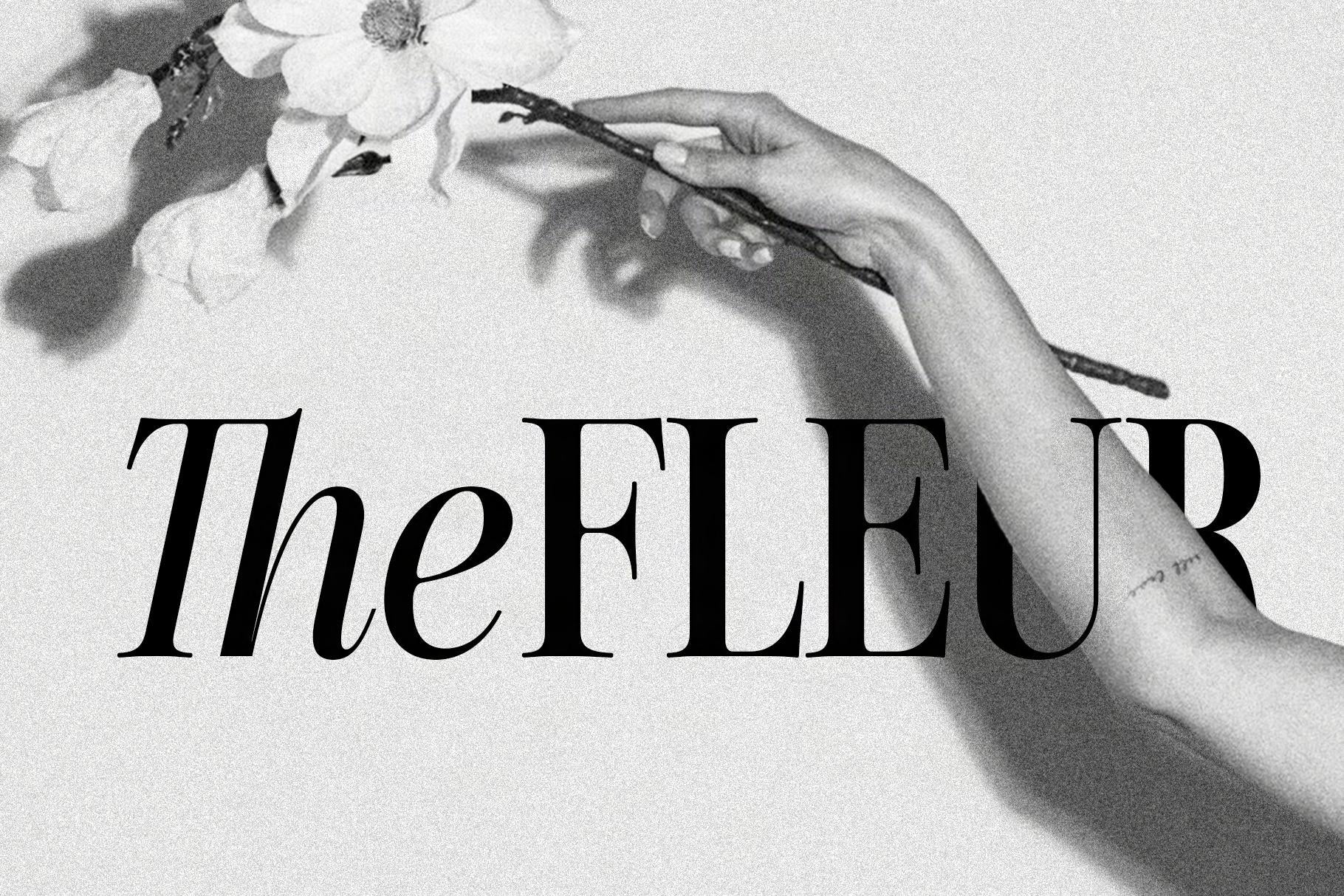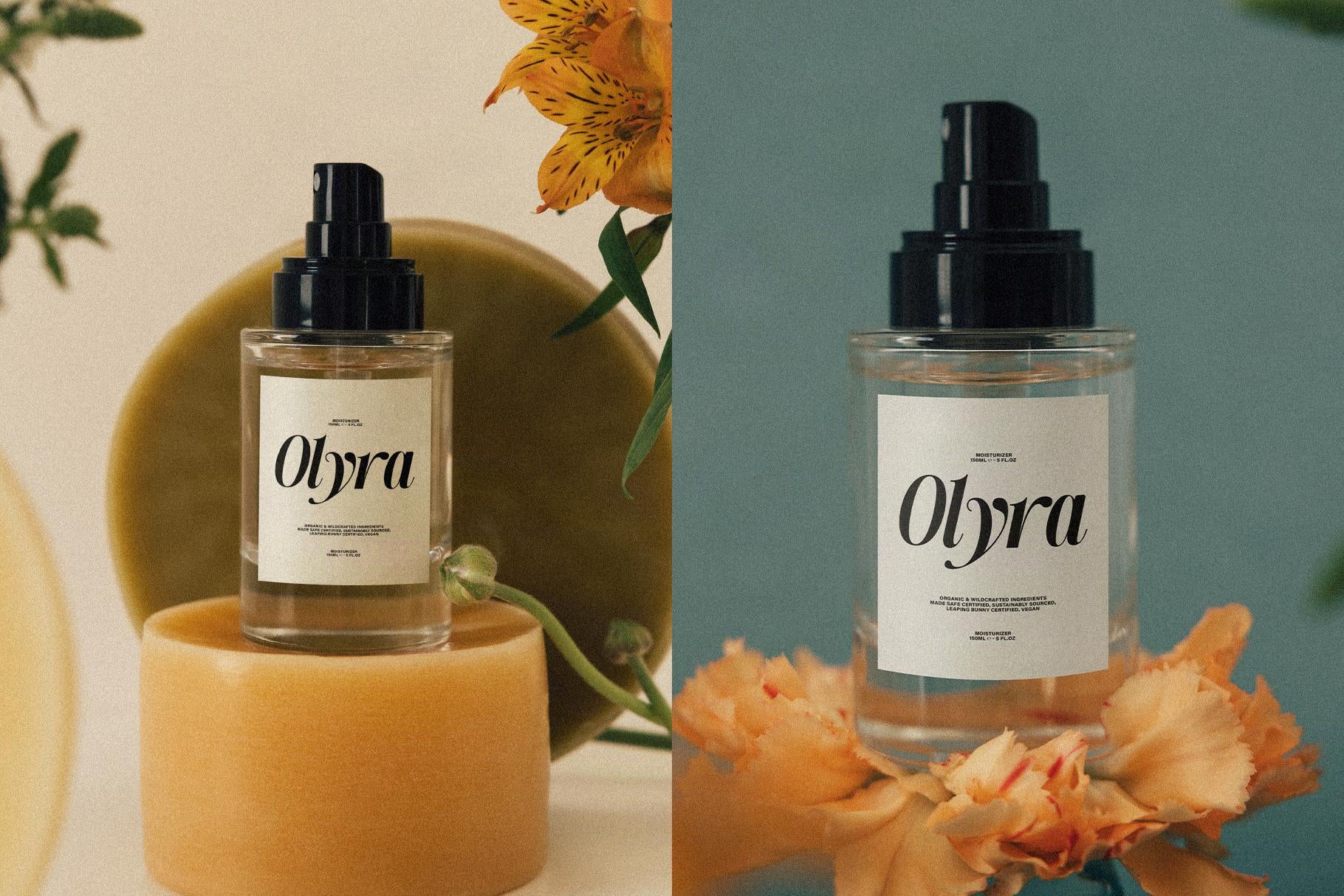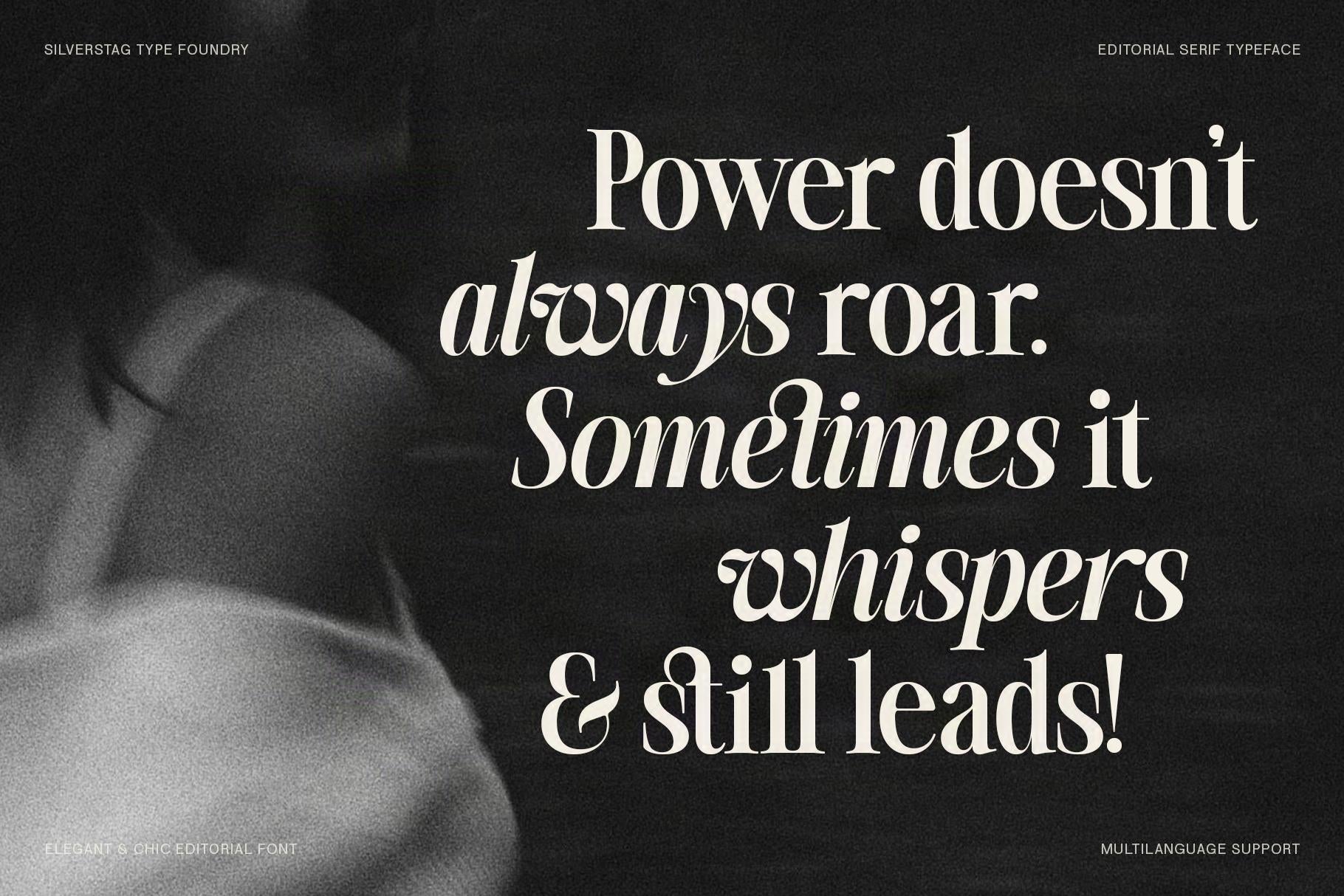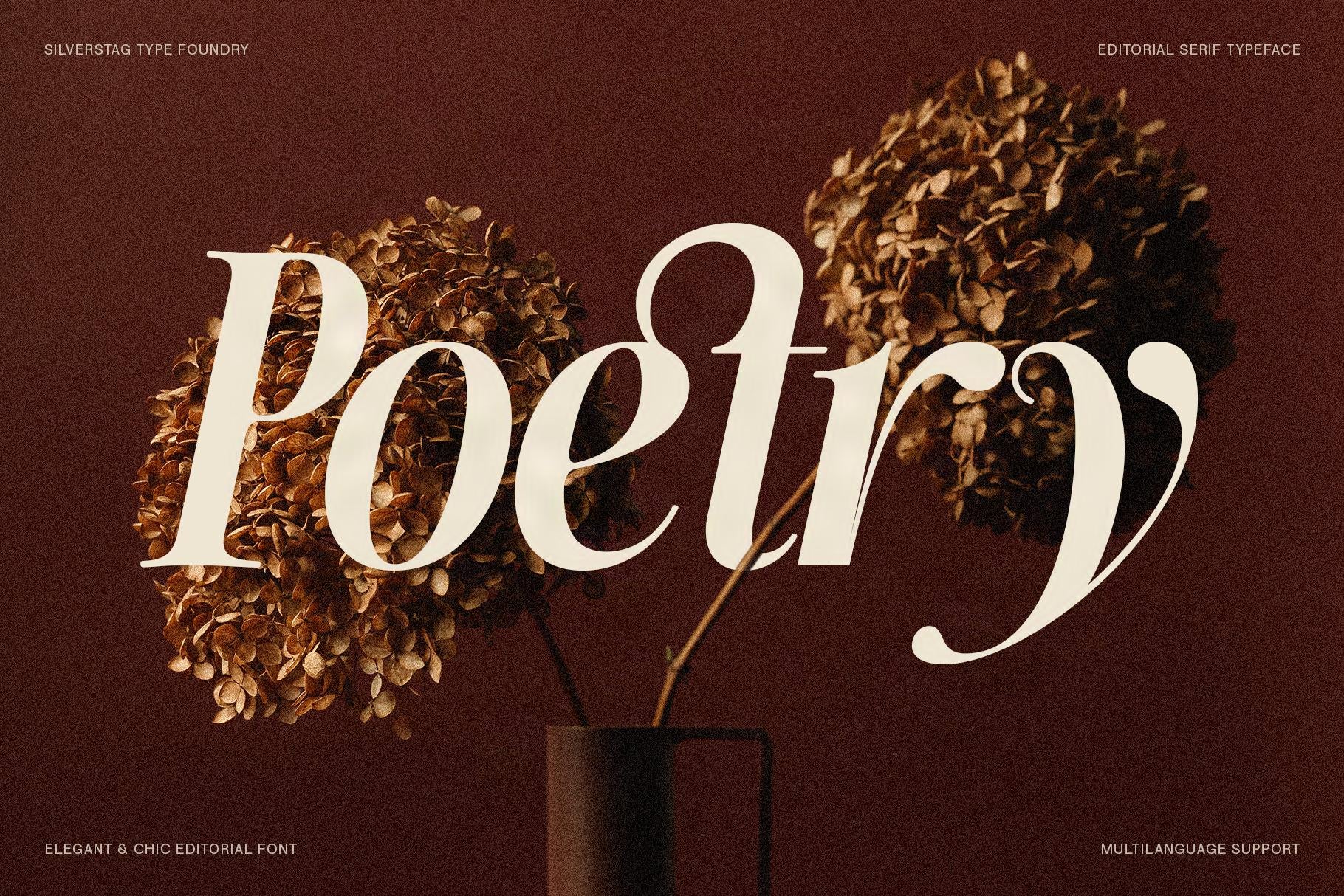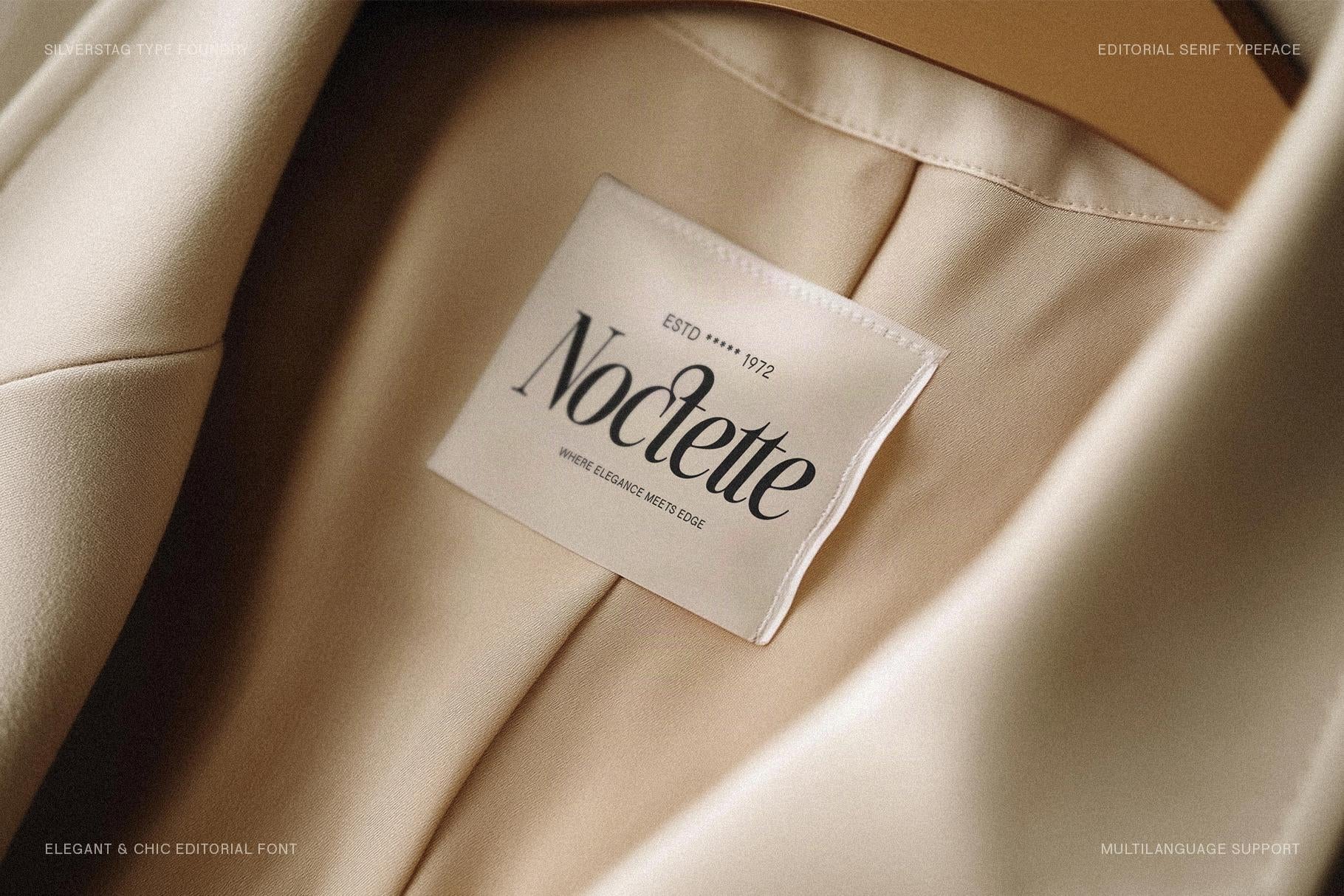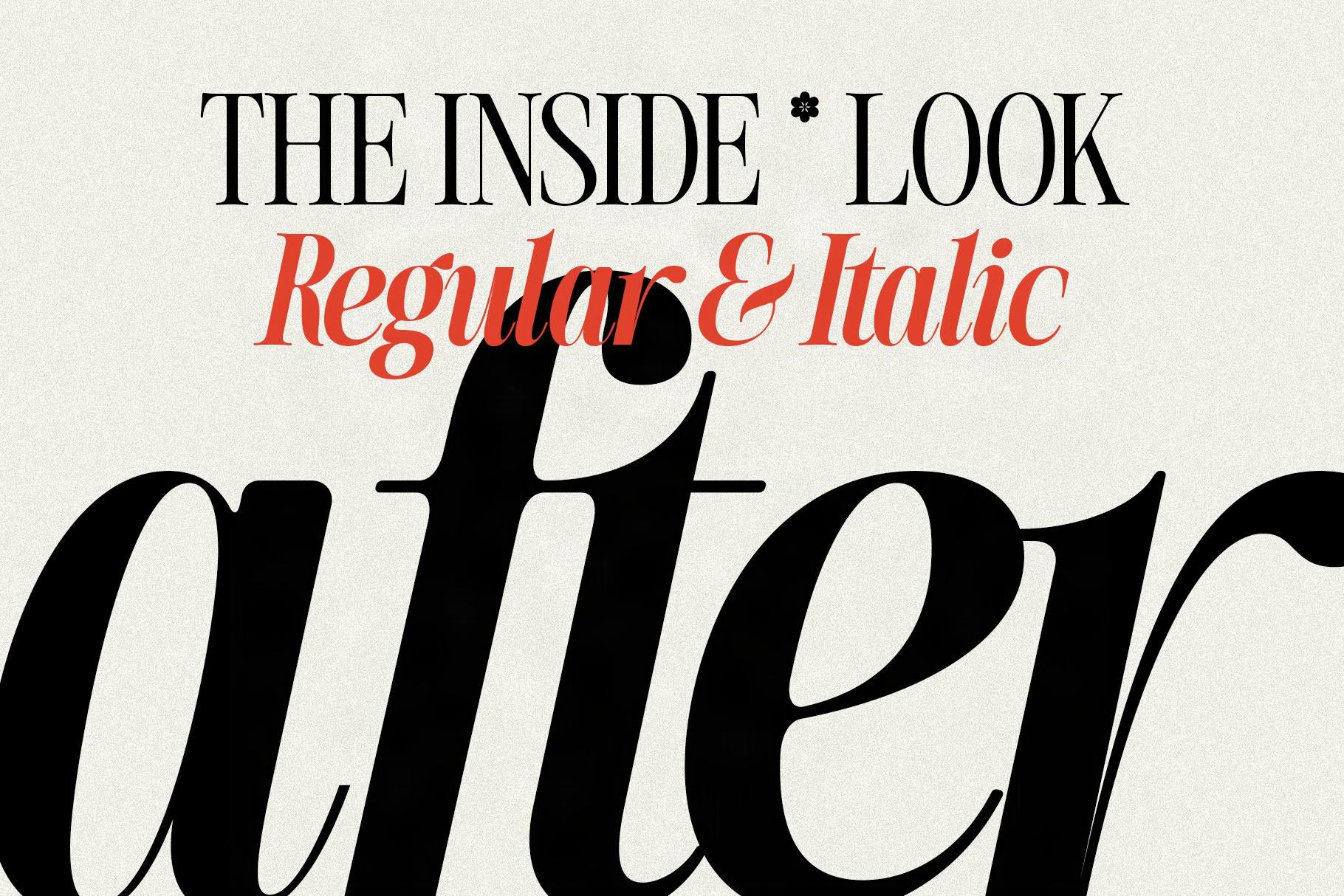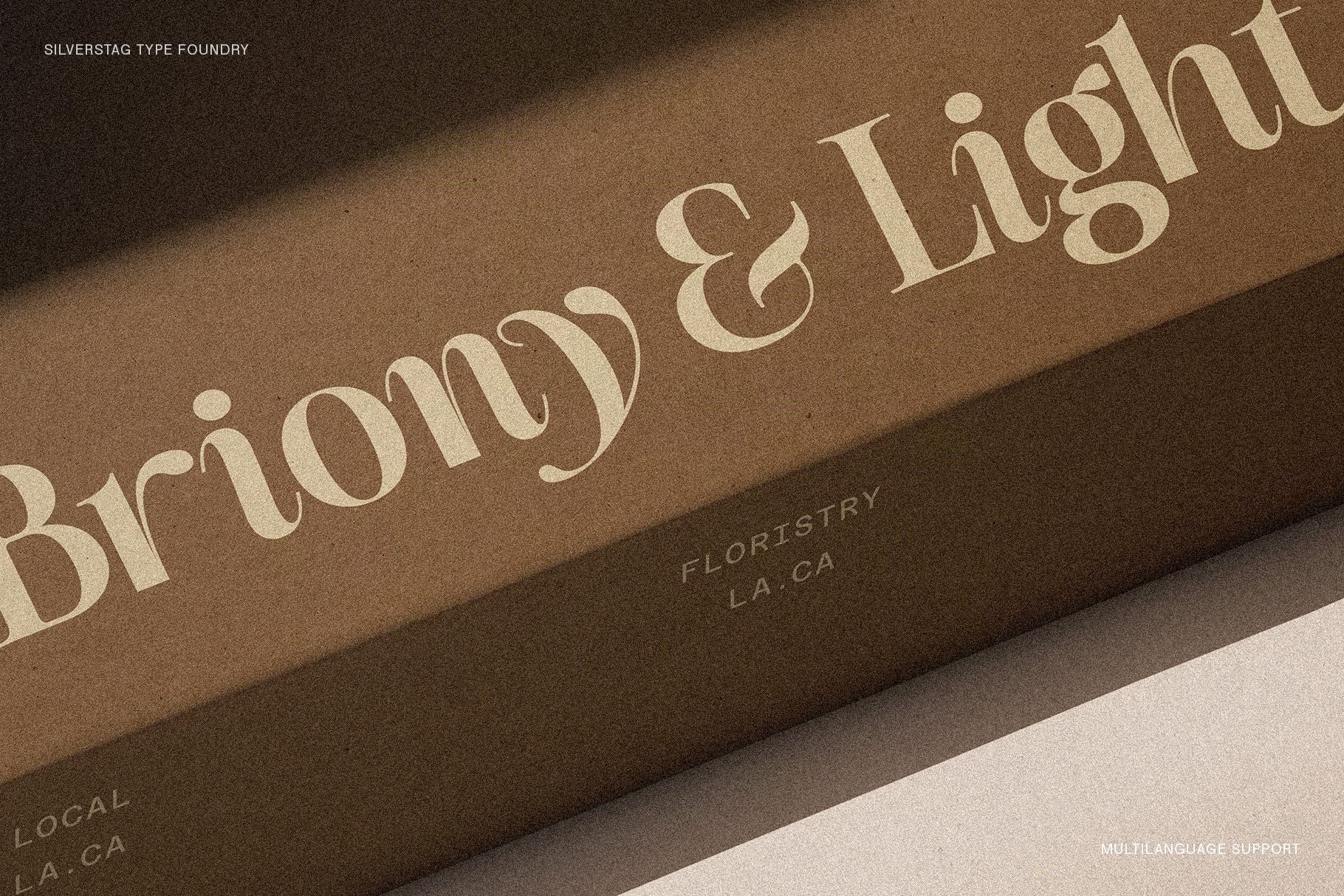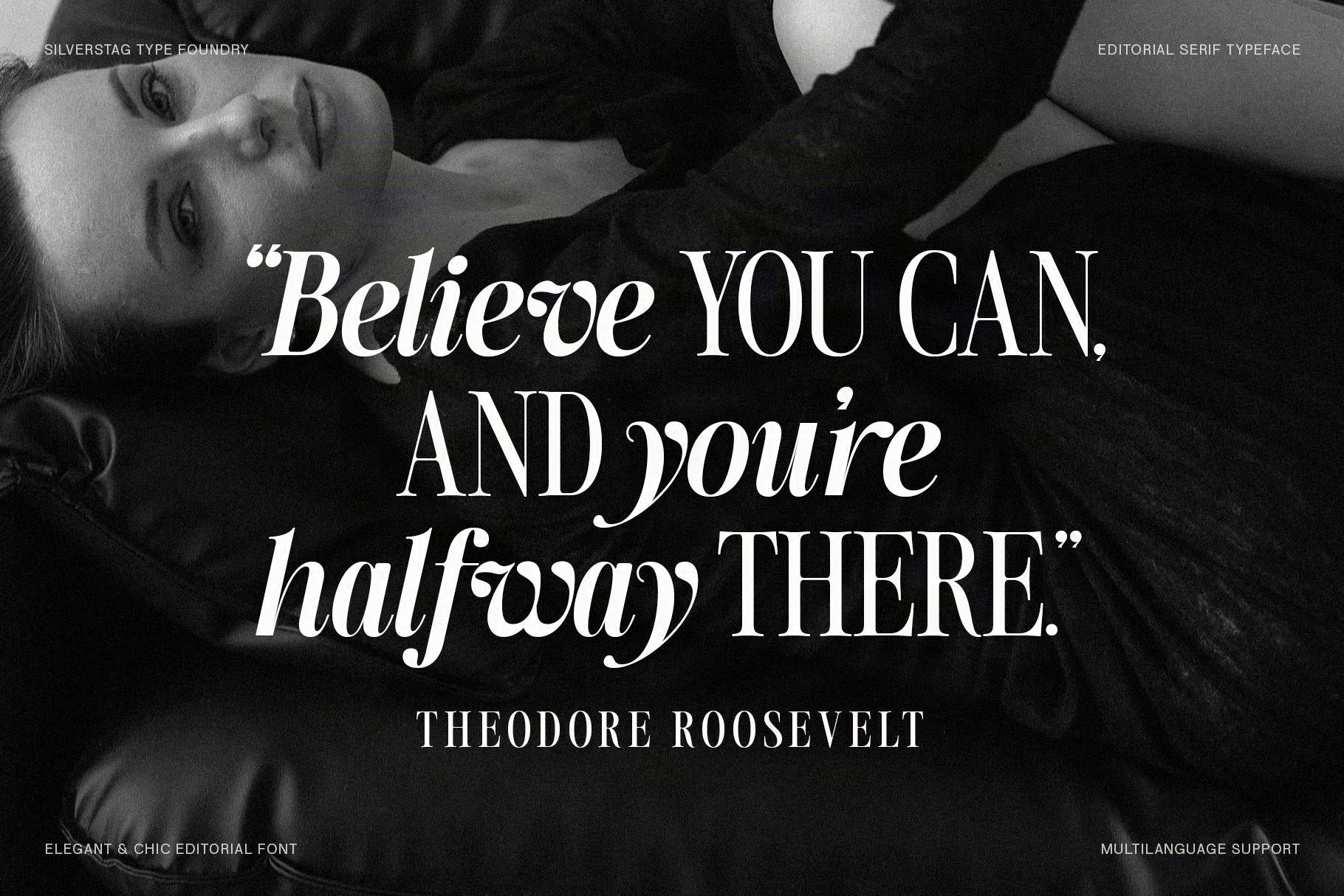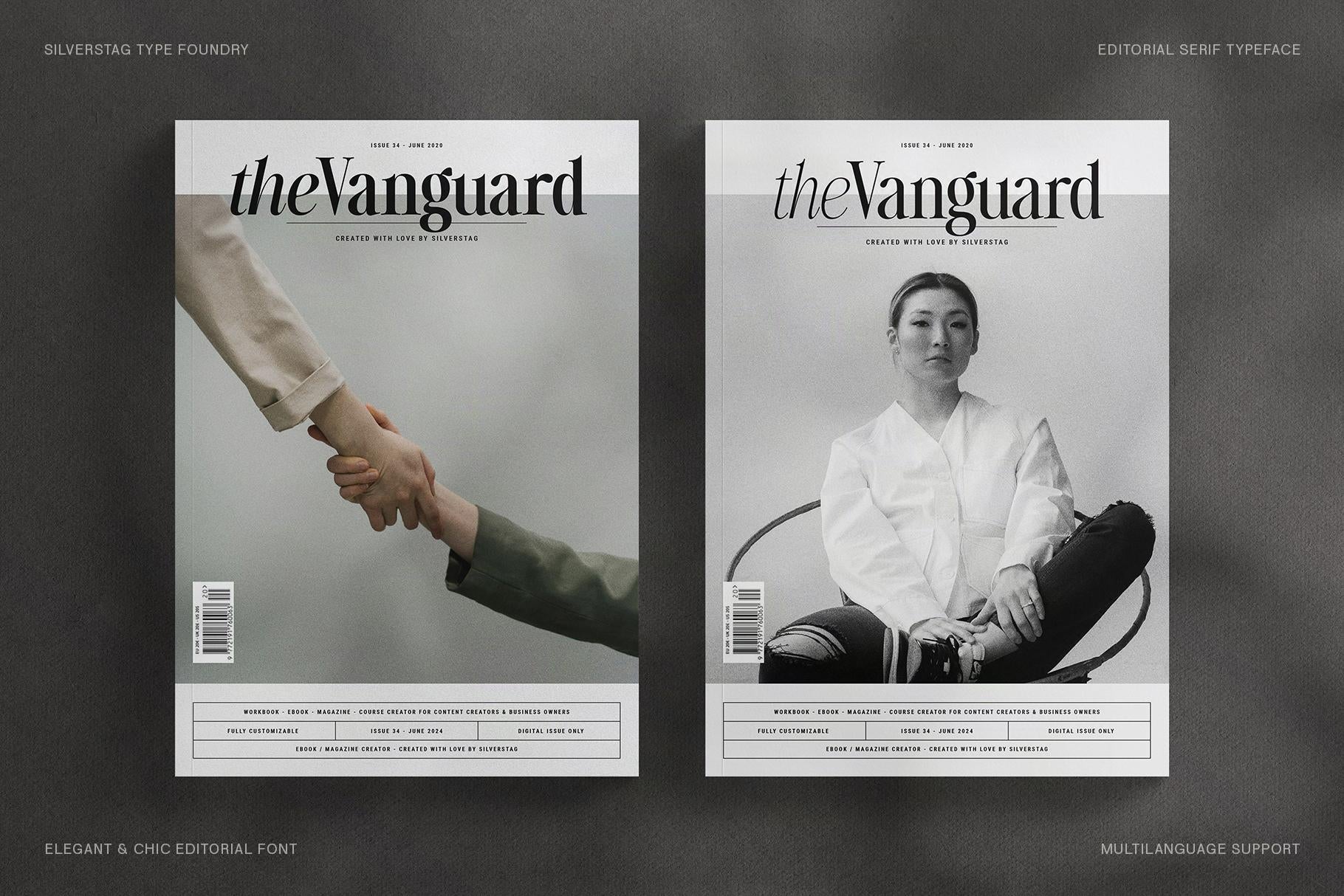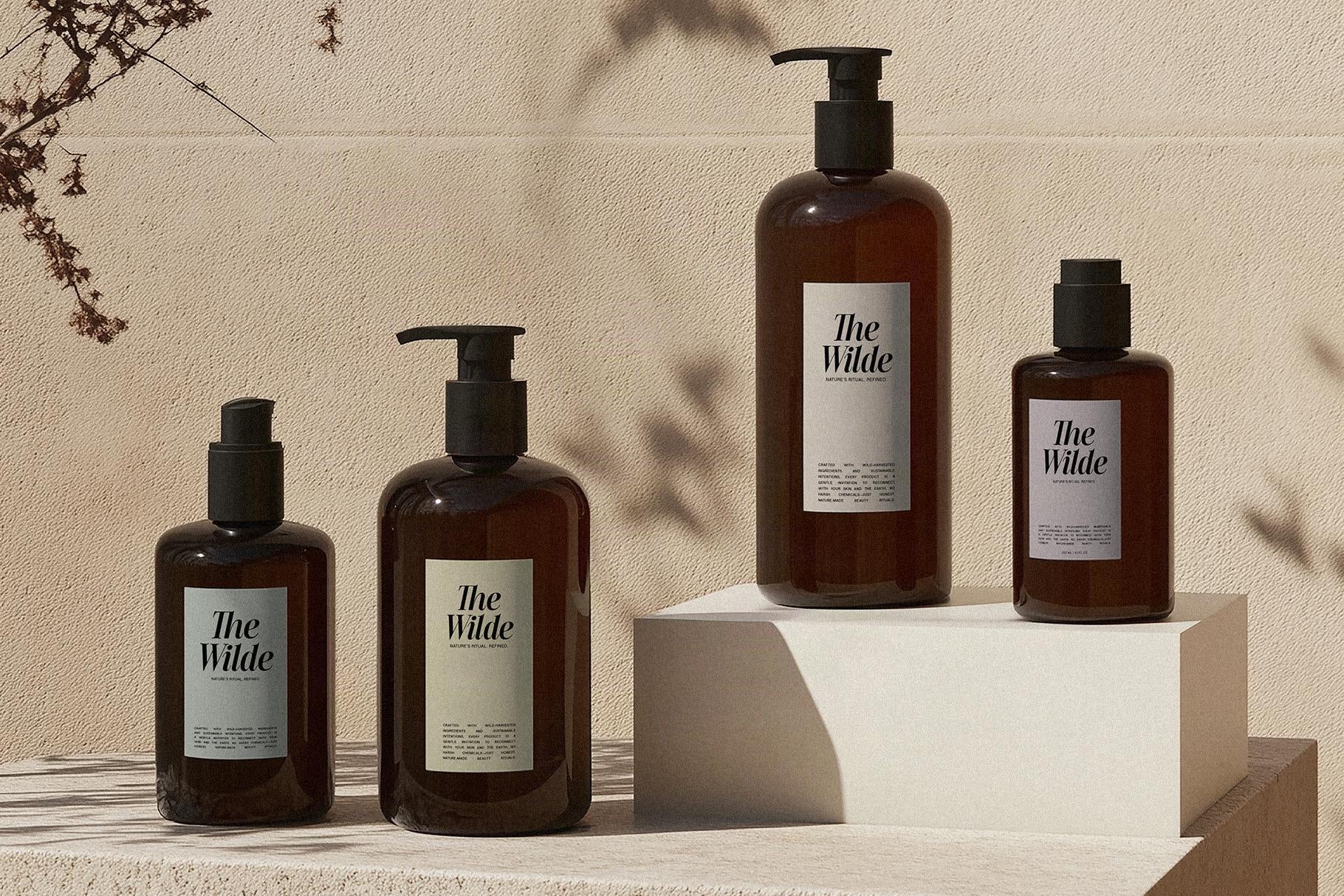
SLTF The Silver Editorial – A Nostalgic Serif Typeface
SLTF The Silver Editorial is a high-impact serif typeface inspired by the expressive typography of 1980s fashion magazines—reimagined for modern creatives. Now fully redrawn and expanded into a powerful 18-font system (9 weights + italics), it’s your new essential for editorial design, branding, packaging, and digital storytelling.
Built on the aesthetic of vintage serifs and sculpted with a contemporary edge, The Silver Editorial blends refined contrast, bold elegance, and beautiful rhythm, making it ideal for both statement headlines and elegant body text. With support for 100+ languages, it adapts seamlessly to global projects and multicultural campaigns.
What Makes The Silver Editorial Special:
• 18 Fonts Total – 9 weights (Thin to Black) with matching italics
• Inspired by the 1980s – Sharp, expressive serifs with modern restraint
• Beautiful Italics – More than slanted—true editorial flair and dynamism
• Luxury-Ready – Ideal for fashion, skincare, editorial layouts, and bespoke branding
• Global Reach – Covers over 100 languages
• Customizable Feel – Packed with ligatures and stylistic alternates for custom logotypes
Olyra skincare serum bottles branded in The Silver Editorial, shown on cream and teal backdrops with flowers — a beauty packaging mockup.
"Poetry" set in The Silver Editorial's swashed italic, ivory on a deep burgundy background with dried hydrangea.
Retro teal scene with vintage telephones; The Silver Editorial reads "Light Effects, Blurred Creatives — Cool typefaces & Psychedelics."
"Briony & Light, Floristry, LA.CA" debossed in The Silver Editorial on the edge of a brown floristry box.
Two "the Vanguard" magazine covers set in The Silver Editorial — a handshake cover and a cover with a woman in a white shirt.
"Solyne" set in The Silver Editorial's flowing italic with swashes, over a close-up of a white anemone.
Two black-and-white fashion photos with "La Beauté sans effort" set in The Silver Editorial roman and italic.
Amber dropper serum bottle labelled "Vireya" in The Silver Editorial, surrounded by pink flowers — beauty packaging mockup.
Essential-oil packaging "Cedre — whisper & wick" set in The Silver Editorial, with matchsticks on a textured surface.
A single "Olyra" serum bottle set in The Silver Editorial on an olive plinth with orange flowers — beauty packaging mockup.
"Charlotte" magazine spread set in The Silver Editorial roman and italic, with a black-and-white silhouette of a woman by a window.
Canvas tote bag printed "Verova — Wear Your Story, ESTD 1972" in The Silver Editorial, on stone steps — apparel branding mockup.
The Silver Editorial feature slide — an italic "Let your imagination take flight" quote with inset photos and a spec bar noting multilingual support and 50+ ligatures.
Two "the Vanguard" magazine covers set in The Silver Editorial — a handshake cover and a cover with a woman in a white shirt.
The word "TheFLEUR" set in The Silver Editorial, mixing italic and roman caps, beside a hand holding a magnolia branch in black and white.
The Silver Editorial italic and roman reading "Power doesn't always roar. Sometimes it whispers & still leads," over a dark portrait.
Apparel brand label reading "Noclette, ESTD 1972" set in The Silver Editorial, stitched onto a cream blazer.
Editorial layout comparing The Silver Editorial regular and italic — "THE INSIDE LOOK" above a large italic "after" in red and black.
The Silver Editorial roman and italic quoting Theodore Roosevelt, "Believe you can and you're halfway there," over a black-and-white portrait.
Four amber pump bottles labelled "The Wilde" in The Silver Editorial, arranged on a podium with plant shadows — cosmetics packaging mockup.
Logo lockup "Chez Margot, ESTD 2023 — Where Luxury Meets Elegance" set in The Silver Editorial on folded pink and charcoal paper.
Cream gift box with gold-foil "Celestyn — Unveil Your Essence" set in The Silver Editorial — luxury packaging mockup.
"Malaga" set in large ivory Silver Editorial serif over a blurred Mediterranean rooftop scene.